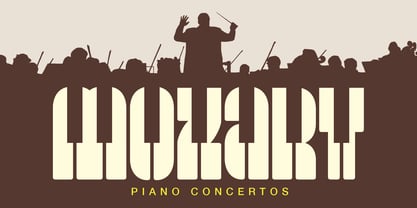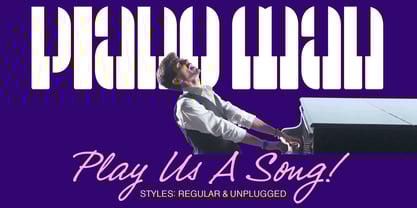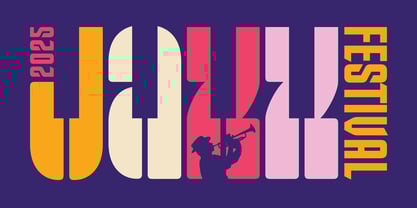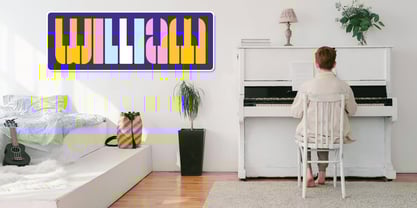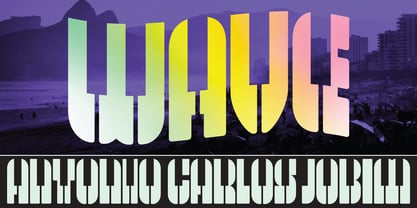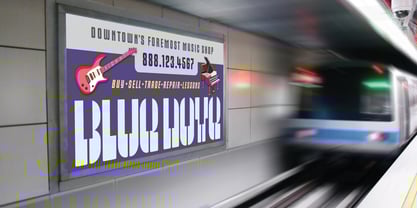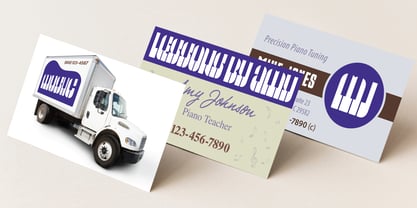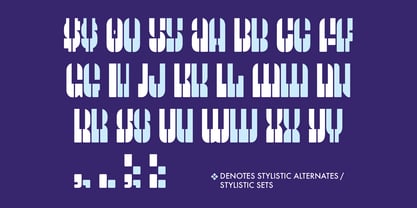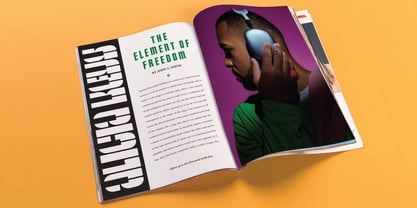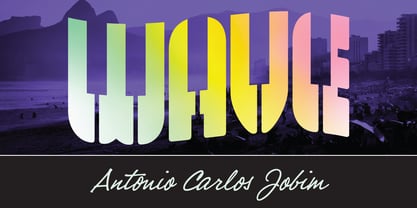
Piano Man BF
by Bomparte's Fonts
The Piano Man BF Font Family was designed by John Bomparte and published by Bomparte's Fonts. Piano Man BF contains 2 styles and family package options.
Let the music play!
Piano Man BF is a unique logo font where the letters themselves emulate the look of piano keys. Though they may not accurately reflect a keyboard pattern, the impression of one is there.
Here's a welcome accompaniment to all your music-related projects. Just imagine: branding, signage, music event graphics, logos, packaging and why not even a one-of-a-kind label for a bottle of wine?
Note regarding Piano Man BF / Regular: if in an OpenType-savvy vector program (such as Adobe Illustrator) letters were outlined, a word space would become blank. To retain a solid-color, first select "Stylistic Alternates" for the highlighted word space.
Making cameo appearances are this foundry's Narrative BF and Rockport BF.